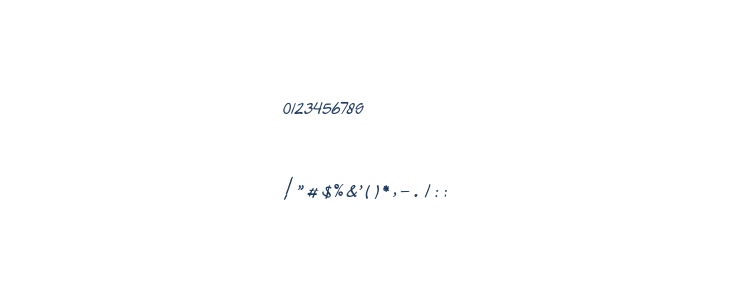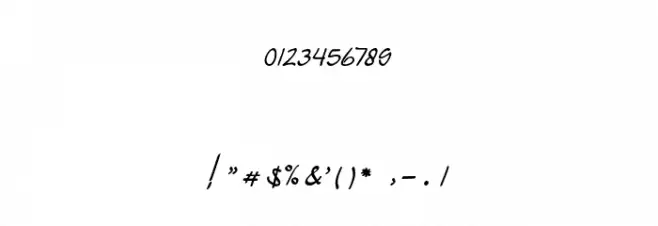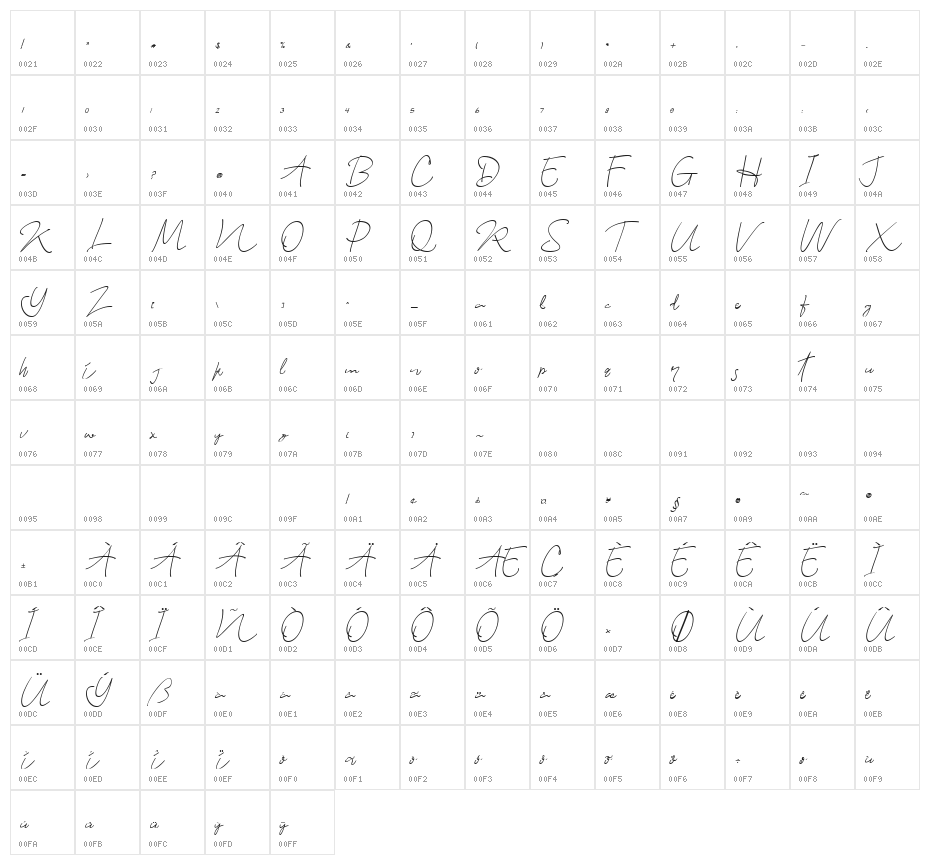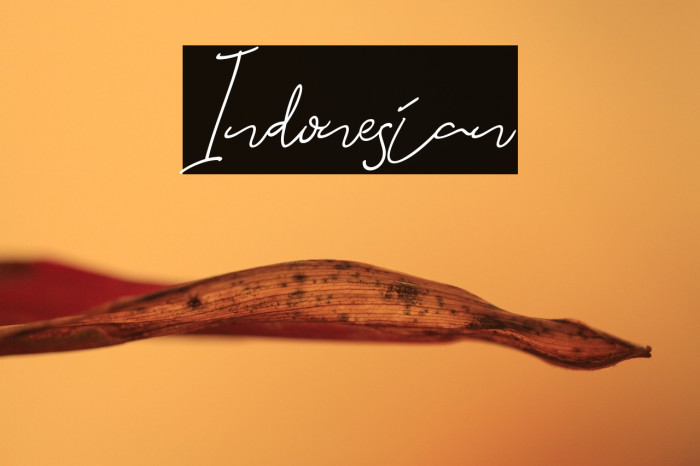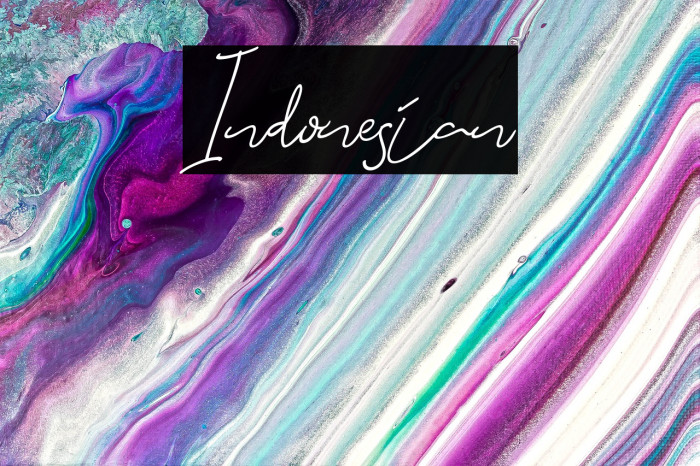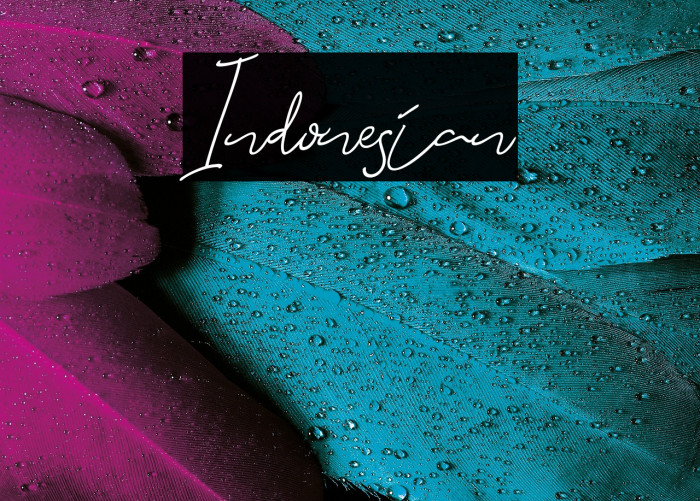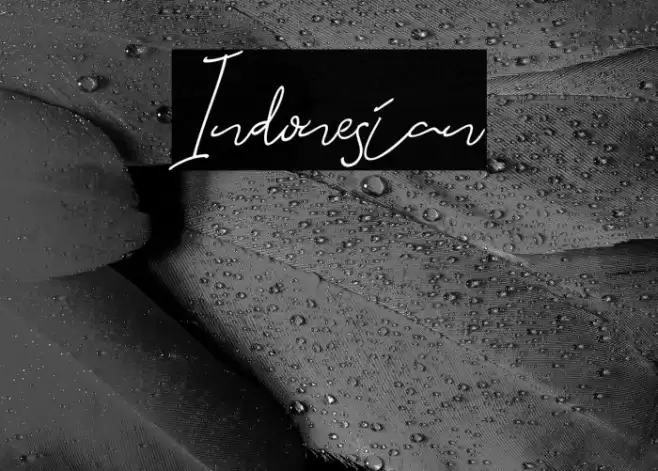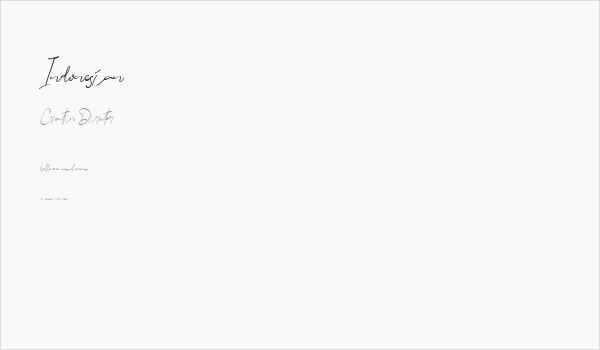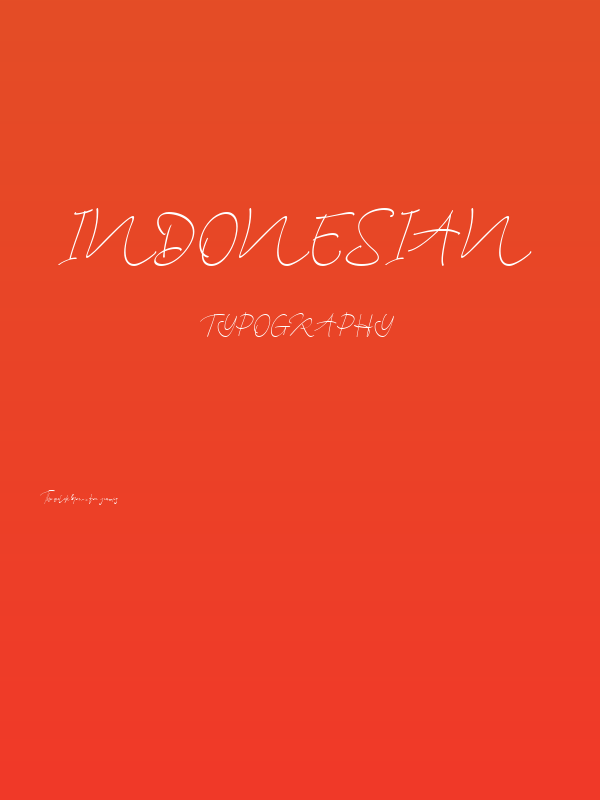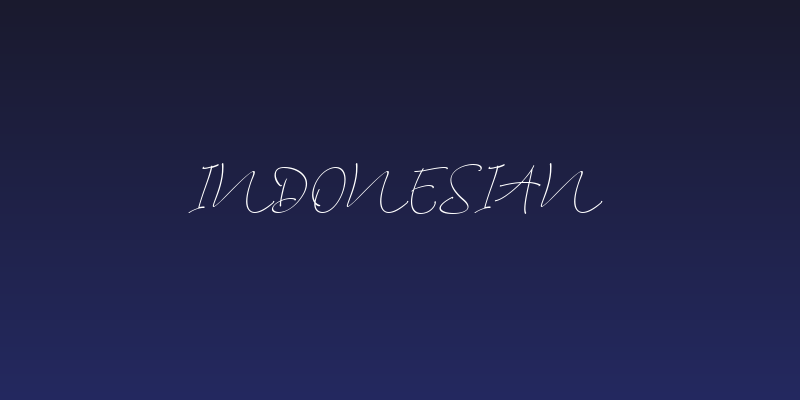
Indonesian Font
Indonesian Description
This font exudes a sense of elegance and fluidity, characterized by its cursive, handwritten style. The uppercase letters are tall and slender, with a slight slant that adds a dynamic feel. The lowercase letters are more compact, featuring intricate loops and swirls that enhance its decorative appeal. The numbers maintain the same cursive style, ensuring consistency across all characters. Special characters are thoughtfully integrated, maintaining the overall aesthetic. The font's thin strokes and delicate curves make it ideal for projects that require a touch of sophistication and personal flair.
| Proposed Projects | Ideal for wedding invitations, personal branding, greeting cards, and elegant packaging designs. |